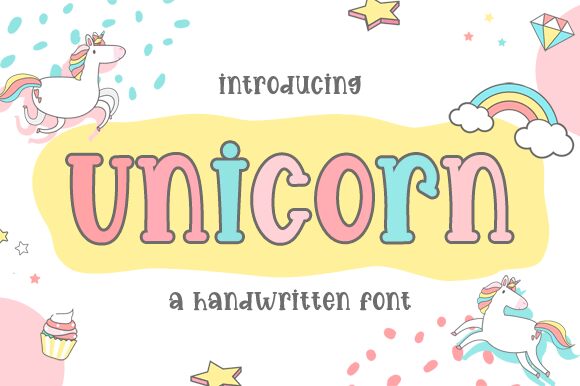
Unicorn
Unicorn, a playful masterpiece from Nirmala Creative, embodies the whimsical charm of cartoons in its every curve. The font's condensed nature adds a touch of quirkiness, making it an ideal choice for projects that aim to delight and engage with a dash of fun. Its bold presence leaps off the page, drawing eyes and commanding attention.
Perfect for imaginative branding, vibrant posters, or eye-catching children's literature, Unicorn infuses youthful energy wherever it appears. This delightful display font is sure to sprinkle a little magic on creative endeavors that aim to capture hearts with lighthearted flair.